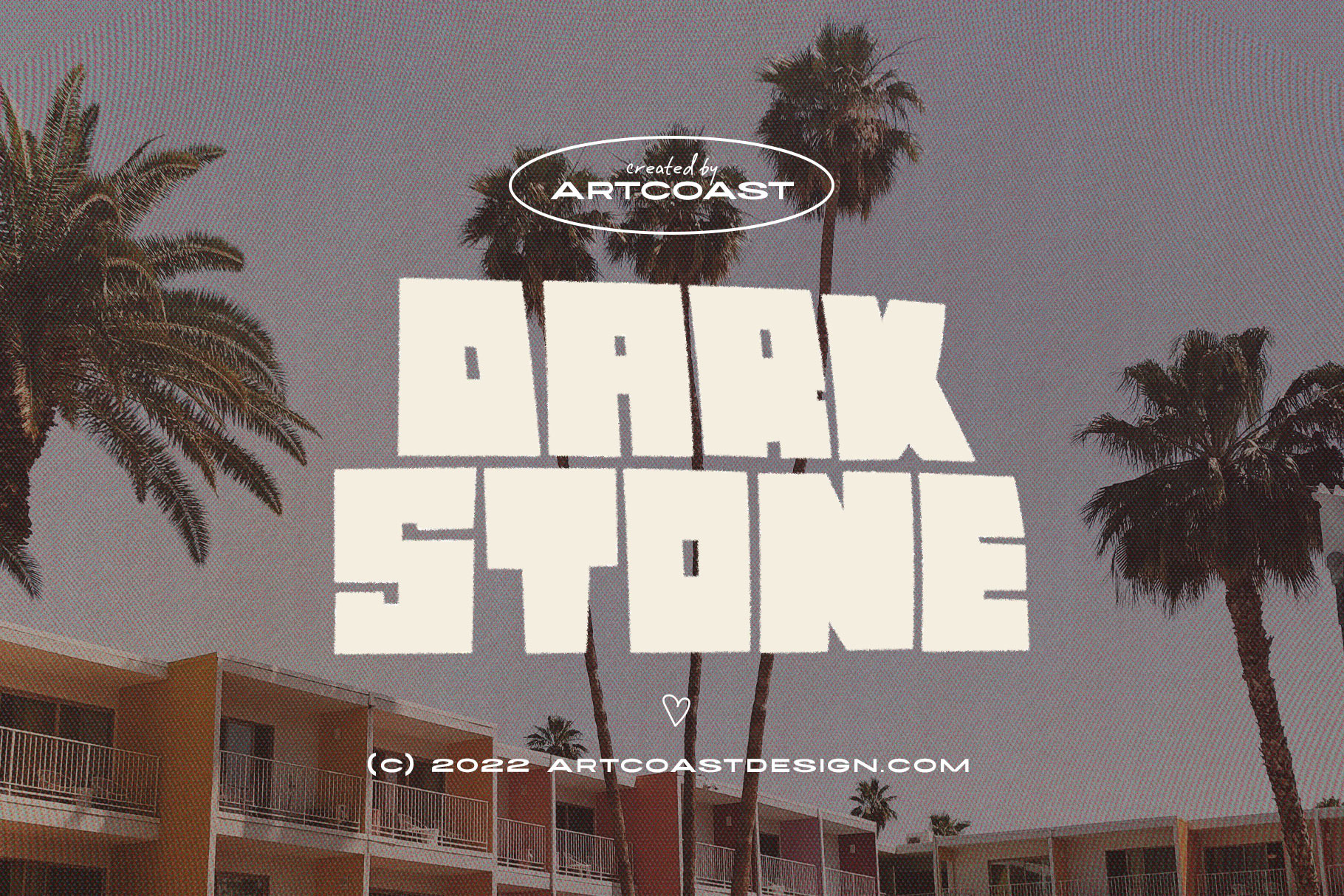
Dark Stone Bold Display Font
Dark Stone is a heavy all-caps display font built for bold, high-impact typography. Its wide geometric shapes, sharp cut-ins, and retro industrial attitude give headlines a strong cinematic presence while remaining easy to read at large sizes.
Use it for posters, album covers, film titles, sports graphics, streetwear, logos, packaging, editorial headlines, social media, event branding, and vintage-inspired designs. The blocky letterforms work especially well in short titles, stacked layouts, badges, and oversized type treatments.